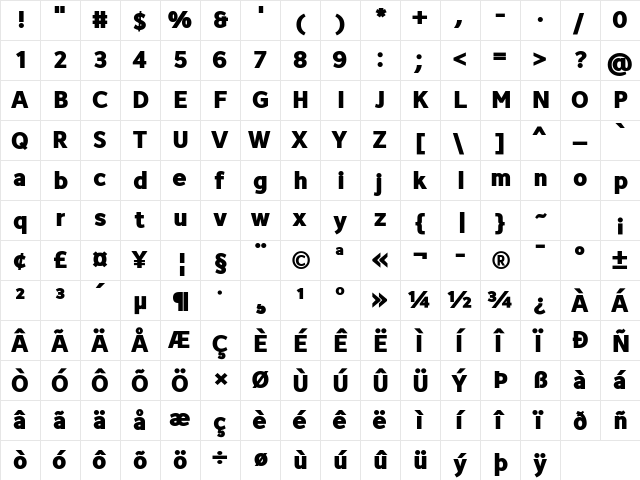
Avancement 2020 Black
| Foundry | Daniel Lyons Entertainment |
| Designer | Dan P. Lyons |
Design Context for Avancement 2020 Typeface
Avancement 2020 offers clean, dependable letterforms without strong stylistic allegiance, making it a practical choice for designers who need flexibility.